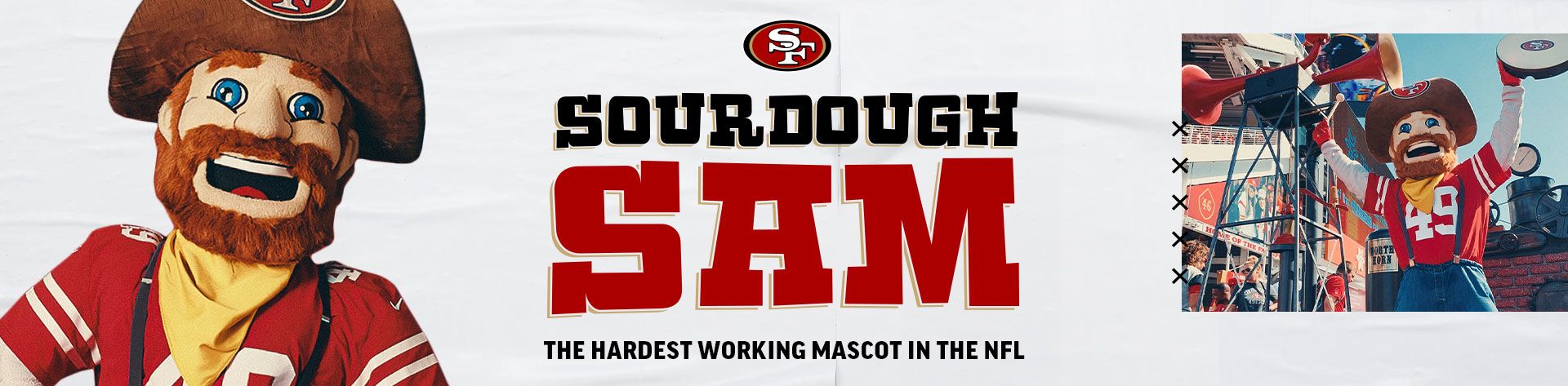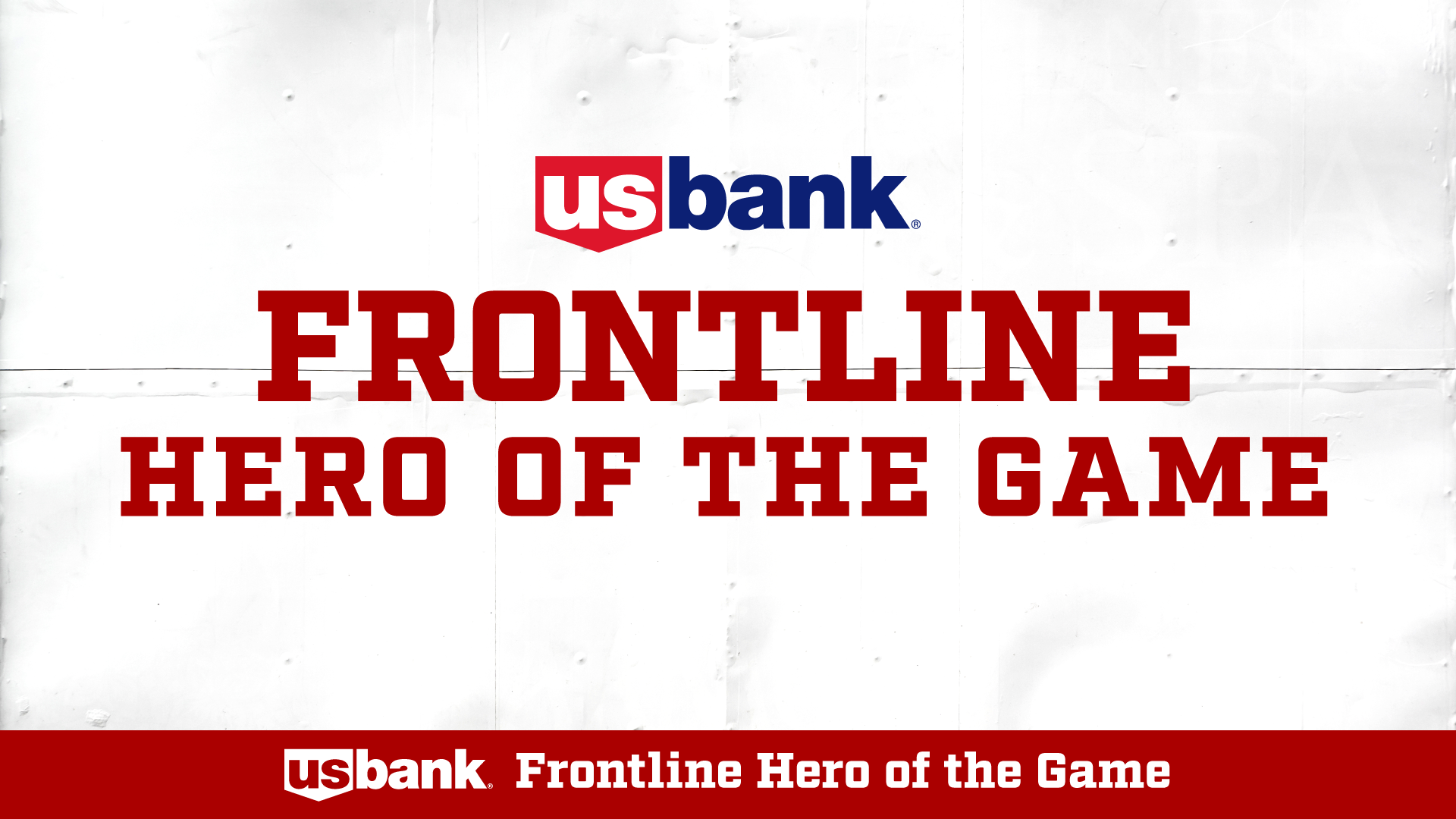
49ers faithful font download. Created the faithful font to match the existing san francisco 49ers logos. 49ers faithful font on behance best of behance. Jun 13 2016 created the faithful font to match the existing san francisco 49ers logos.
49ers faithful font faithful is based on the iconic sf monogram introduced in the early 1960s and a continuation of the 49ers logo type introduced in mid to la read more. 5 matching requests on the forum. Submit a font tools.
Get it on google play. 49ers faithful font faithful is based on the iconic sf monogram introduced in the early 1960s and a continuation of the 49ers logo type introduced in mid to la read more. This font will be used for the marketing team for numerous print collateral brand identity and campaign.
The result is an exclusive and proprietary work horse font that can be seen in use at various levels of 49ers communications including publications social media stadium signage and on field applications. 1001 free fonts offers a huge selection of free fonts. First seen on dafont.
Faithfulin essence is a modified version of the classic typeface clarendon with heavy block terminals in extended width.